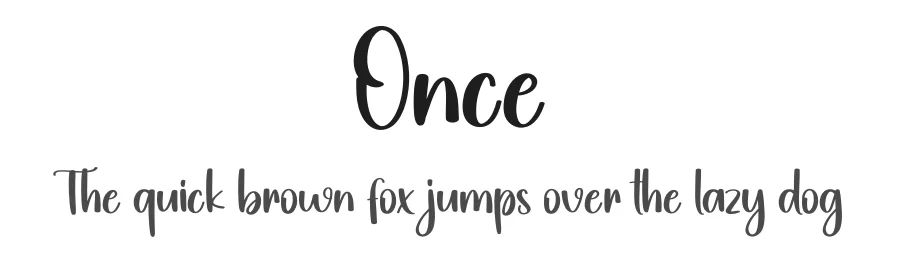
About Letterhand Font
Font By Alghul (Hudzaifah Studio)
Letterhand Specifications
| Font Family | Letterhand |
| Full Name | Letterhand |
| Glyph Count | 90 glyphs |
| PostScript Name | LetterhandRegular |
| Designer | Alghul |
Letterhand supports 170 languages.
Letterhand Font is a script font that shines as a display or heading face. Pair it with a clean sans-serif or serif font for body text β the contrast creates a clear hierarchy while the two styles stay balanced and easy to read.
Letterhand Font
by Al Ghul